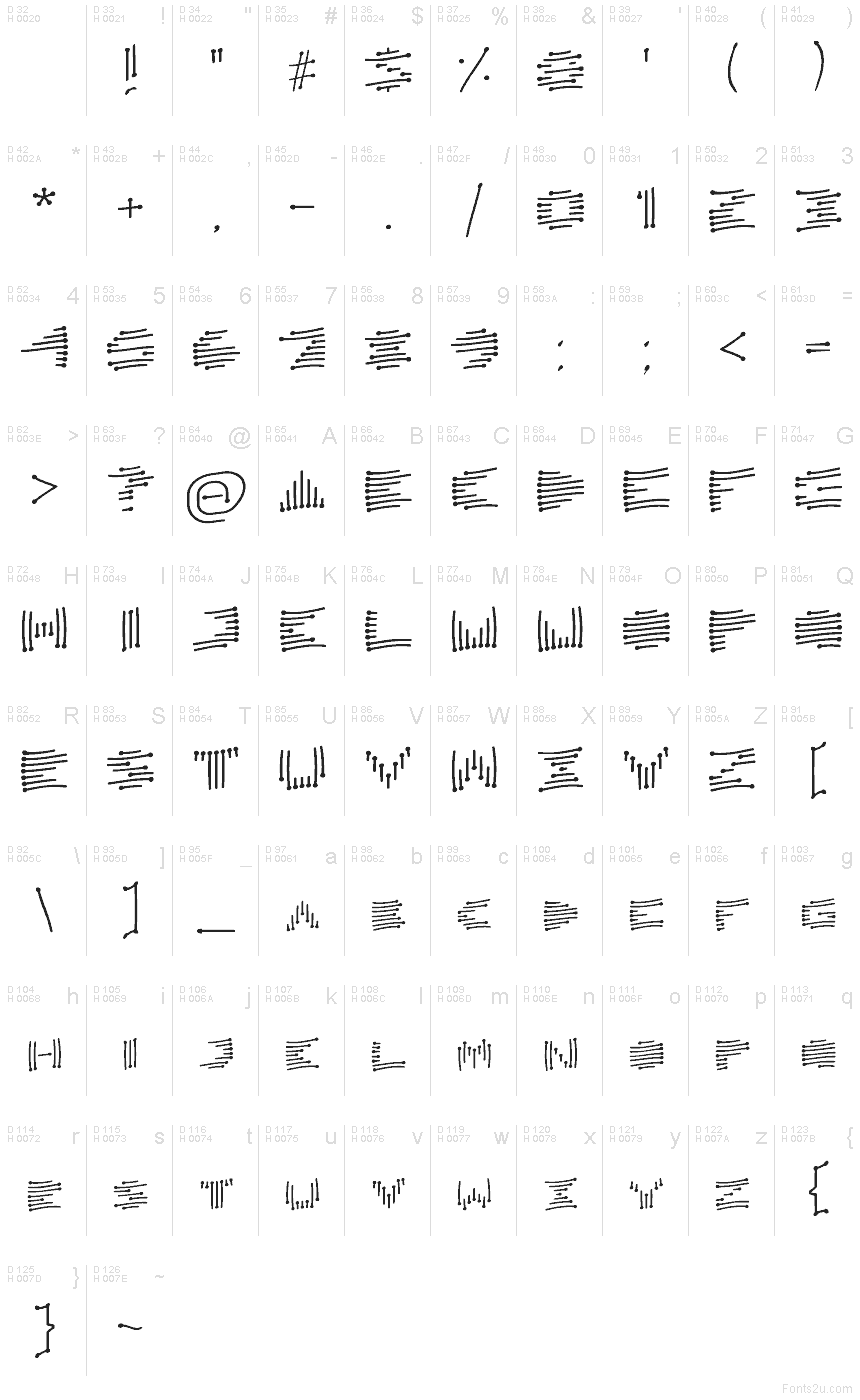
Music Volume Arch
Music Volume Arch font by Galih Nugroho is a free techno display typeface that turns letters into stacked faders and equalizer bars, bending along a subtle arch like a rising chorus. Part of the Music Volume family, its staccato lines and vertical pulses create a kinetic, audio-first rhythm that feels loud even on mute. The texture is crisp and mechanical, yet playful—like neon lights flickering to a beat.
Using Music Volume Arch, headlines snap with motion: festival posters, DJ flyers, album covers, motion graphics, game splash screens, and YouTube thumbnails all gain instant energy. The spacing invites big sizes and generous tracking to let the “volume” breathe. Pair this free font with a clean geometric sans for small copy to keep the message sharp and readable.